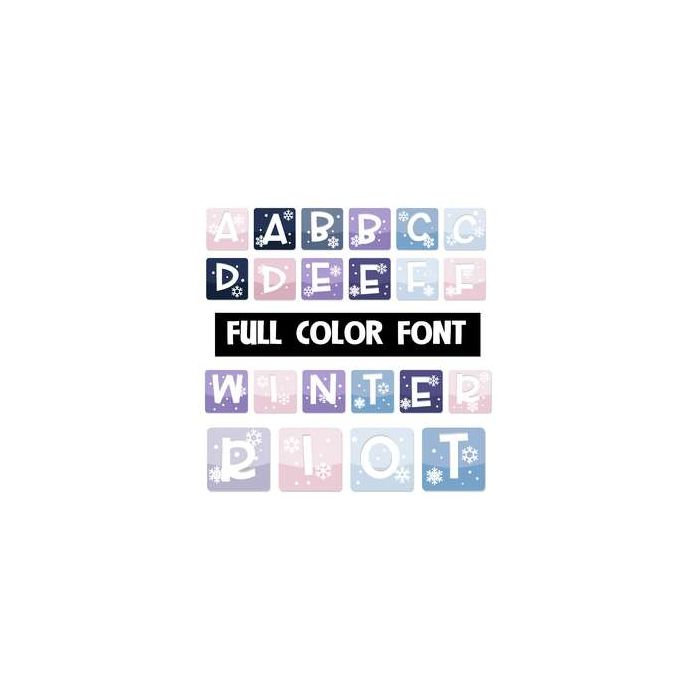
This full-color font features winter colors and snowflakes. This font works best for titles, displays, posters and more. Please note color fonts will show as black in non compatible programs. This font type is compatible with Silhouette Studio.